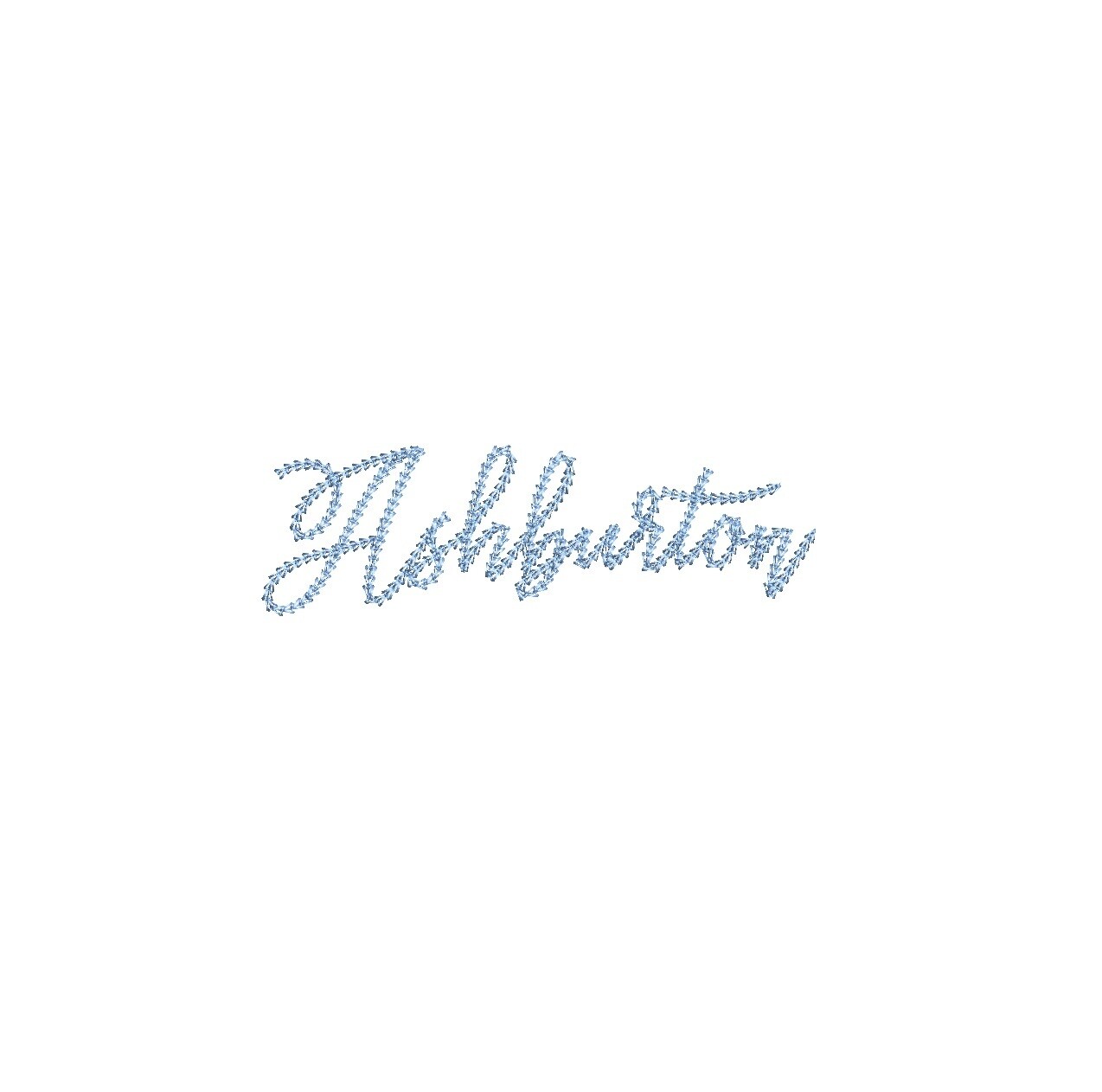
Elevate your embroidery with the Ashburton Chain Stitch ESA font. Compatible with Wilcom Studio e4.5.6 and Hatch 3 versions and newer, it's designed to add sophistication to your creations. Meticulously crafted, its chain stitch artistry infuses depth and allure into every project. Seamlessly integrate the font for exceptional and captivating results. Transform fabric into an innovative canvas with Ashburton's versatile charm. Elevate your embroidery game with this seamless blend of technology and artistry. Embrace the power of Ashburton Chain Stitch ESA font to redefine stitching excellence. Upgrade your designs today and make a lasting impact.